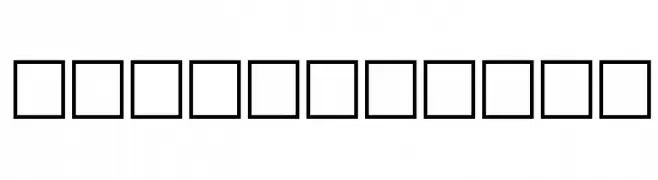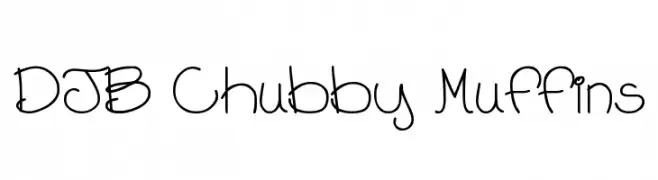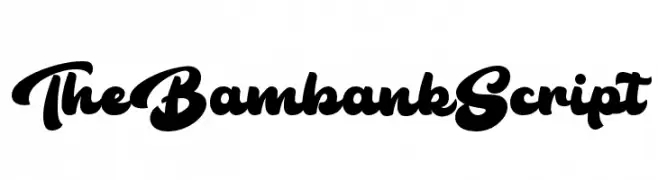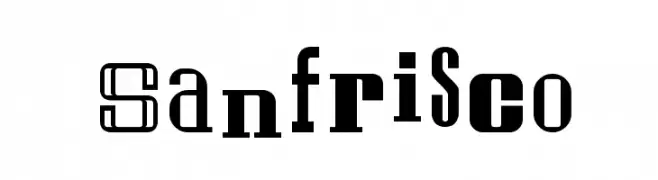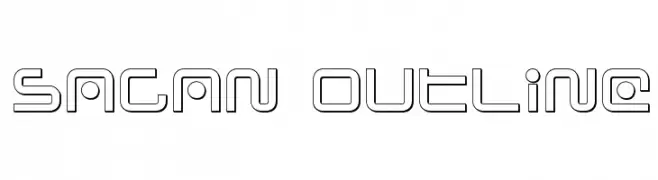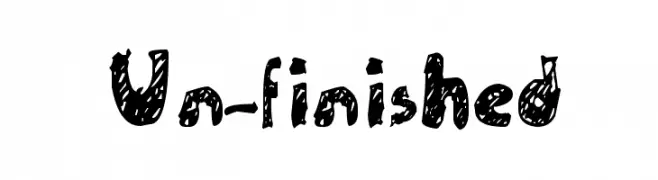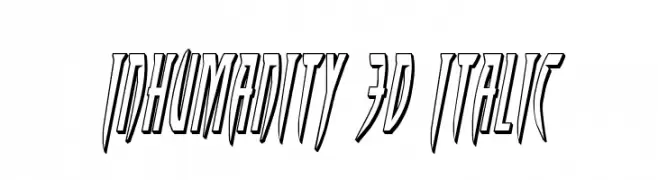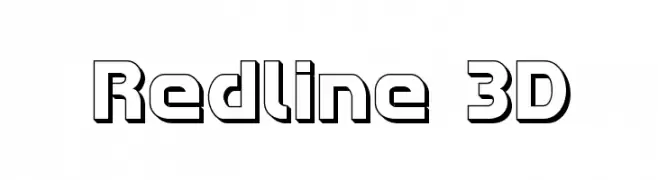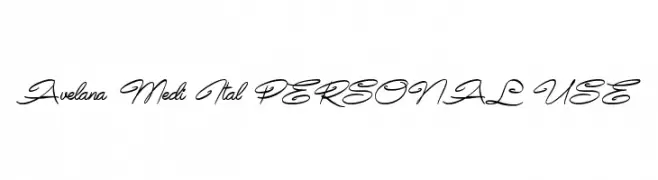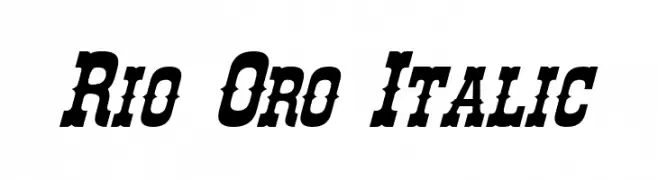
A playful, eclectic font mimicking cut-out letters with diverse styles.
A playful, bold font with rounded edges and a hand-drawn feel.
A playful and elegant handwritten font with fluid strokes and whimsical flair.
A playful, handwritten font with rounded, bubbly characters and a casual style.
A bold, distressed font with a dripping effect, perfect for horror themes.
A bold, expressive handwritten font with fluid strokes and dynamic character forms.
A bold, flowing script font with smooth, connected strokes and rounded edges.
A bold, geometric font with a futuristic and edgy design.
A playful, hand-drawn font styled like letters on sticky notes.
A collection of decorative and plain rectangular frame glyphs.
A bold, eclectic font with a mix of modern and vintage elements, featuring unique character designs.
A geometric, grid-based font with a modern and experimental style.
A futuristic, geometric outline font with clean lines and rounded edges.
A bold, geometric font with strong, angular shapes for impactful design.
A modern, italic typeface with balanced proportions and a sleek design.
A bold, 3D italic font with a futuristic and dynamic style.
A modern, sleek font with elongated, geometric letterforms and unique curves.
A bold, 3D geometric font with strong outlines and a modern feel.
A modern, italic font with clean lines and a dynamic appearance.
An elegant, flowing script font with smooth, cursive letterforms.
A stylized, calligraphic font with sharp angles and fluid curves.
A bold, italicized font with a dynamic and energetic style.
A bold, decorative font with angular, playful shapes and thick strokes.
A bold, playful script font with a dynamic, handwritten style.
A modern italic font with smooth curves and medium contrast, ideal for dynamic designs.
A bold, expressive handwritten font with dynamic strokes and playful flair.
A playful, hand-drawn font with bold, rounded strokes and a friendly appearance.
A whimsical, Christmas-themed decorative font with playful illustrations.